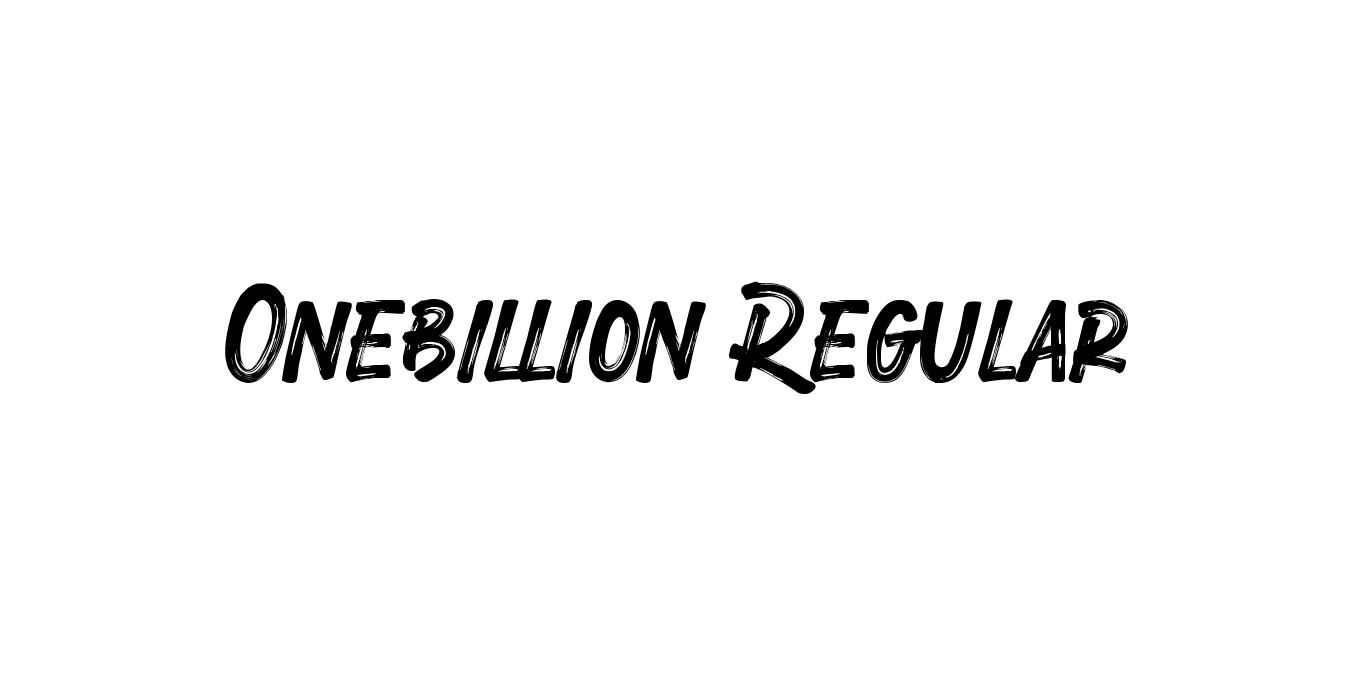
Onebillion Regular
Designed by Garisman Studio
Onebillion Regular is a modern and expressive brush-script font designed to evoke a sense of energy and handcrafted elegance. Its fluid strokes and natural textures make it a standout choice for high-impact visual communication, blending contemporary aesthetics with a rugged, artistic flair that captures the attention of the viewer immediately.
This typeface is particularly effective in branding and marketing materials where a personal, human touch is required. Whether used for large-scale headers or intimate packaging designs, Onebillion Regular offers a versatile range of characters that ensure readability while maintaining its bold, distinctive personality in both digital and print mediums.
Onebillion Regular Best Uses
Perfect for creating memorable and dynamic brand identities with a personal touch.
Ideal for t-shirt graphics, hoodies, and urban streetwear aesthetics.
Great for eye-catching Instagram quotes and high-engagement Facebook banners.
Adds a premium, artisanal feel to product boxes, labels, and stationery.